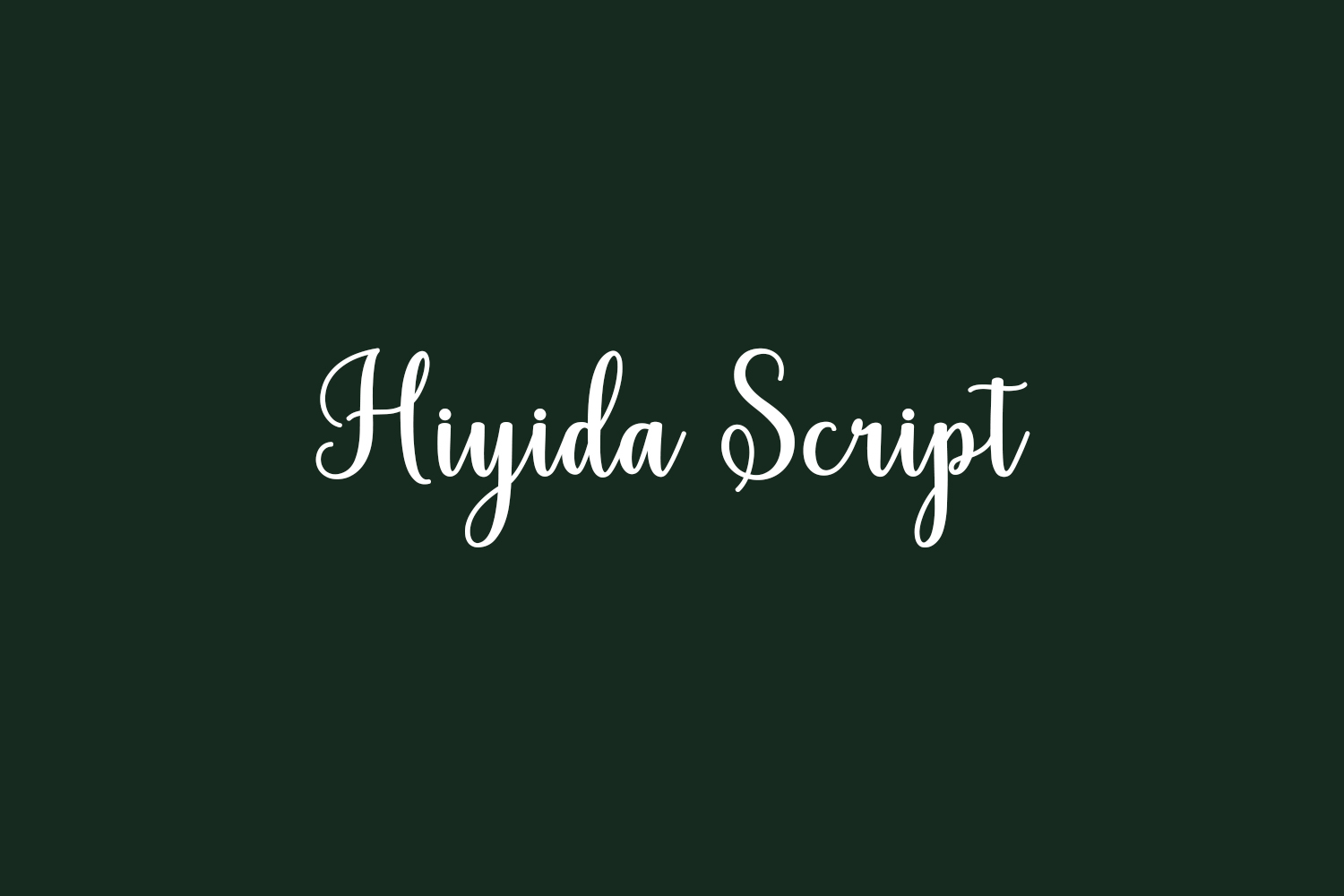
Hiyida Script Free Font is modern script font where every single letter has been carefully crafted to make your text look beautiful. Hiyida Script Free Font was designed by Creative.Lafont and is free for personal use only. Please purchase the full version for commercial use.